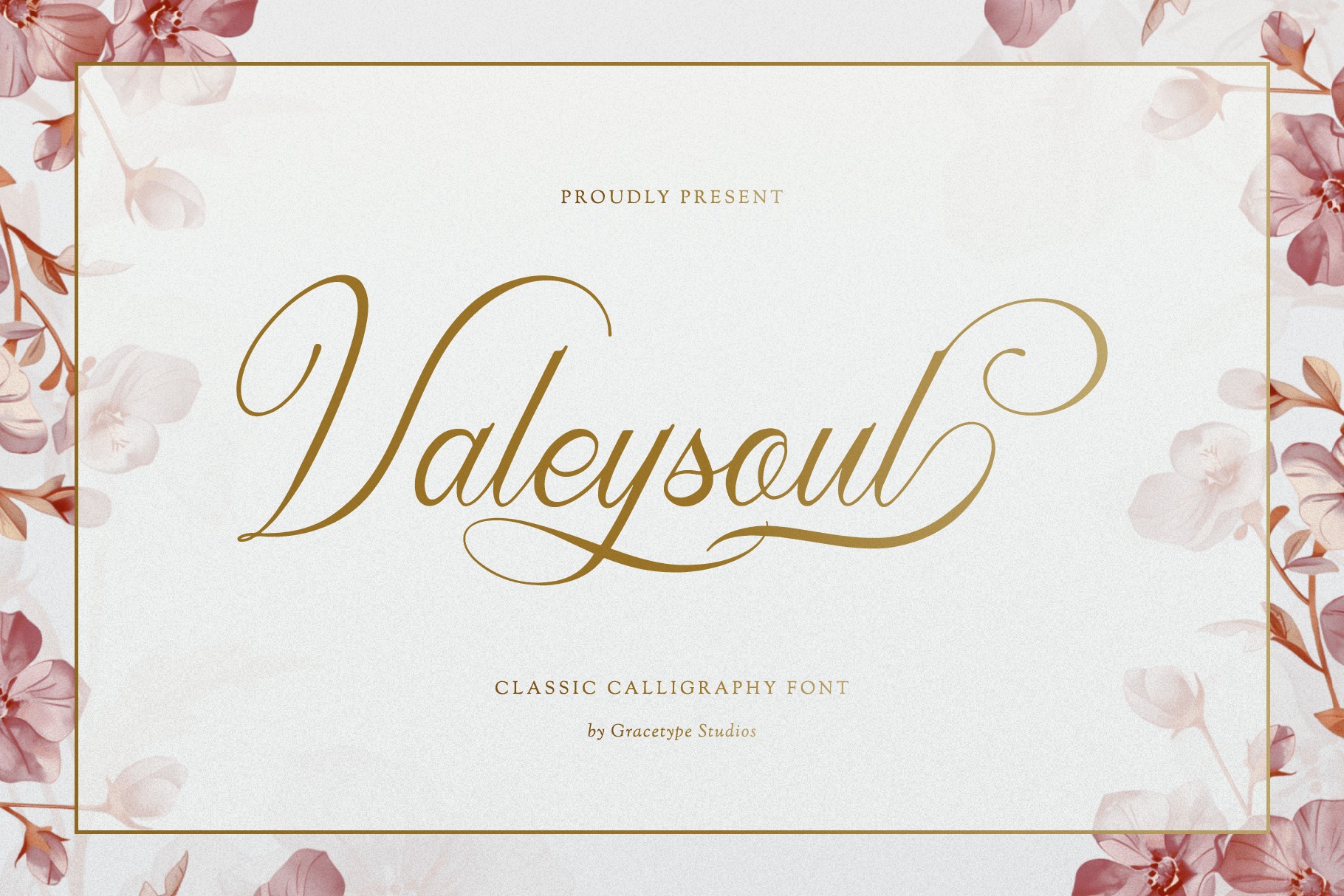
Valeysoul – Luxury Calligraphy Font
Valeysoul – Luxury Calligraphy Font brings a balanced structure and contemporary look, making it suitable for both digital and print design. Valeysoul | Classic Calligraphy, from Gracetypestudio, suitable for any projects such as: logos, branding projects, homeware designs, product packaging, mugs, quotes, posters, shopping bags, t-shirts, book covers, name card, invitation cards, greeting cards, label, photography, watermark, special events, and all your other lovely projects that need a Calligraphy taste.